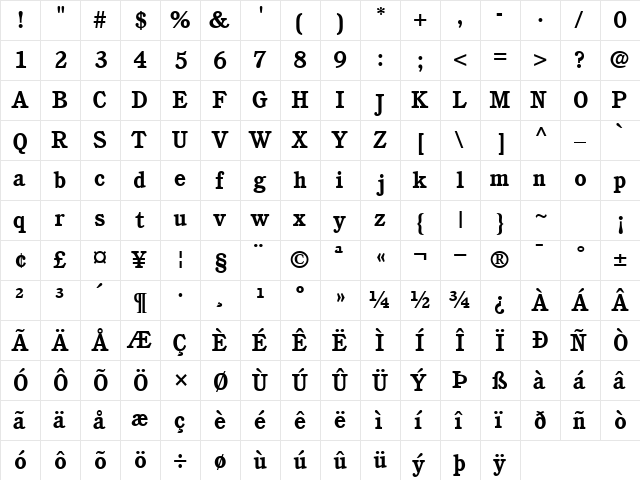
PerspectiveSSK Bold
Design Context for PerspectiveSSK Typeface
PerspectiveSSK is a composed and adaptable typeface that performs quietly and consistently across a wide range of design contexts. The heavy weight commands attention and anchors typographic hierarchies.